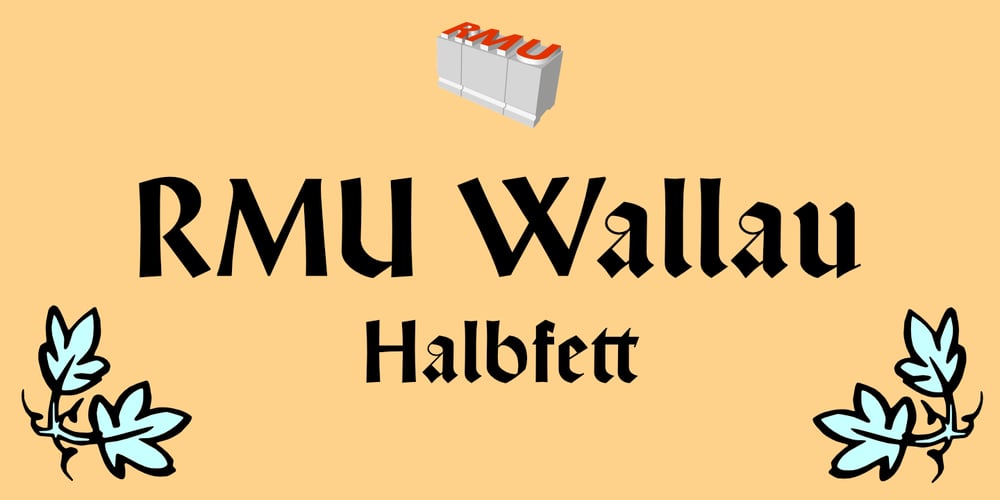
RMU Wallau Font Family was designed by Ralph M. Unger and published by RMU. RMU Wallau contains 1 styles and family package options. In 1885 Heinrich Wallau, printer and typographer in Mainz, picked up the idea of creating a rounded gothic font written with a broad nib. This idea was then realized by Rudolf Koch between 1925 and 1930. RMU Wallau is a bringing back this beautiful font for present typography.